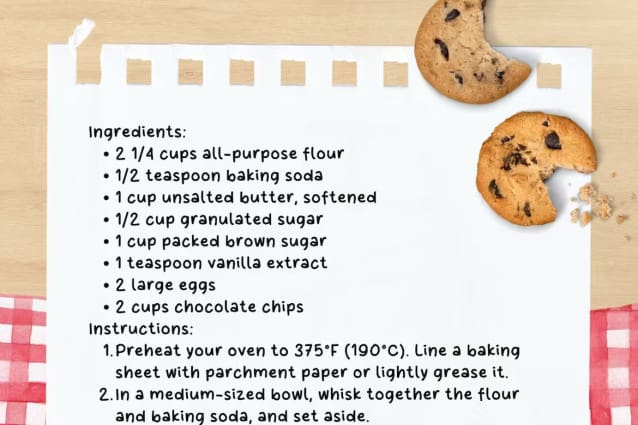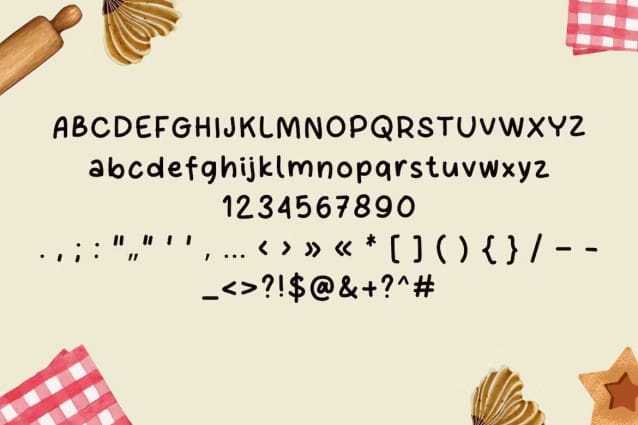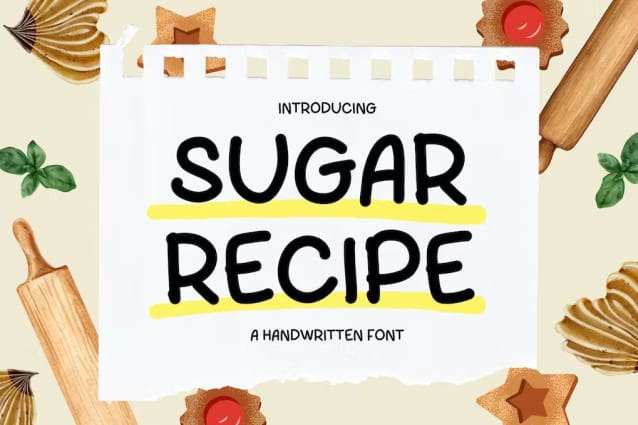
Sugar Recipe Font
Sugar Recipe Font – Handwritten Font! This cute and playful font is perfect for many projects like posters, social media kits, notes, kids’ books, novels, and wedding invitations. With its casual and friendly style, it adds a touch of creativity to your projects. Jot down your thoughts or doodles with a font that radiates charm. Whether you’re writing a story or inviting guests to your big day, Sugar ‘Recipe’ will leave a lasting impression. Its versatility knows no bounds, bringing joy to every design. Let Sugar ‘Recipe – Handwritten Font’ sweeten up your note-taking and add a sprinkle of magic to your creations!